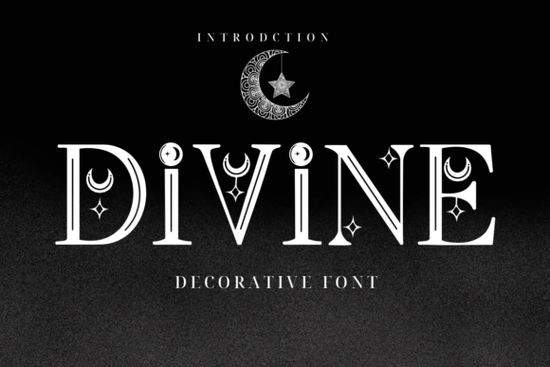
Choosing the right typeface for spiritual or fantasy designs often comes down to subtle character details that catch the eye without overwhelming the layout. Divine Font solves that balance by pairing a traditional serif structure with delicate celestial accents like tiny stars and crescent moons embedded directly into the letterforms. Instead of heavy ornamental swirls, it uses minimalistic negative space to create an ethereal atmosphere that reads clearly on screens and packaging alike. This practical approach makes it a reliable choice for small business owners and independent creators who need both beauty and functionality.
How does a celestial serif perform in real design projects?
Many decorative typefaces struggle past short headlines, but this style holds up well because the base letters follow established proportions. The moon and star elements are sized carefully so they do not interfere with tracking or line height. When setting up tarot spreads or fantasy book covers, you will notice consistent weight across uppercase and lowercase variants. If you ever need to pair it with something completely different for a children’s craft project, you might browse a playful prehistoric alphabet that adds fun contrast to your growing design library.
The value really shows up on merchandise. Sellers frequently use mystical typography on tote bags, candle labels, and crystal packaging, where readability matters just as much as visual impact. You can layer it over textured backgrounds or soft gradient washes without losing decorative details. For creators who prefer a bright, modern look, a glowing lunar style might suit digital posters better, but the traditional foundation here keeps printed materials polished and easy to scan from a distance.
What technical details should makers know before downloading?
Color treatment matters significantly. Since the star and moon cutouts rely on fill color to show through, placing the type on a white canvas often hides those delicate accents. Testing muted earth tones or deep navy makes the details stand out clearly on physical products. Always export a high-resolution preview at actual size before sending files to a professional printer, especially when working with complex die-cut shapes.
How do you build a cohesive brand around mystical typography?
Strong branding starts with consistency across all touchpoints. Stick to one primary typeface for headlines and choose a clean sans-serif for body paragraphs to maintain visual hierarchy. Use the decorative stars sparingly as section dividers instead of repeating them across every graphic. Keep layouts spacious because crowded designs drown out delicate letter details. Small shops often overlook file organization, which causes delays during busy seasons. Save variations in clearly labeled folders and track which licensing tier covers your current sales volume.
Quick checklist before launching your next design
- Test at twelve, eighteen, and seventy-two points to confirm screen readability.
- Verify that star and moon accents remain visible on dark or textured backgrounds.
- Pair decorative letters with neutral text for product descriptions and fine print.